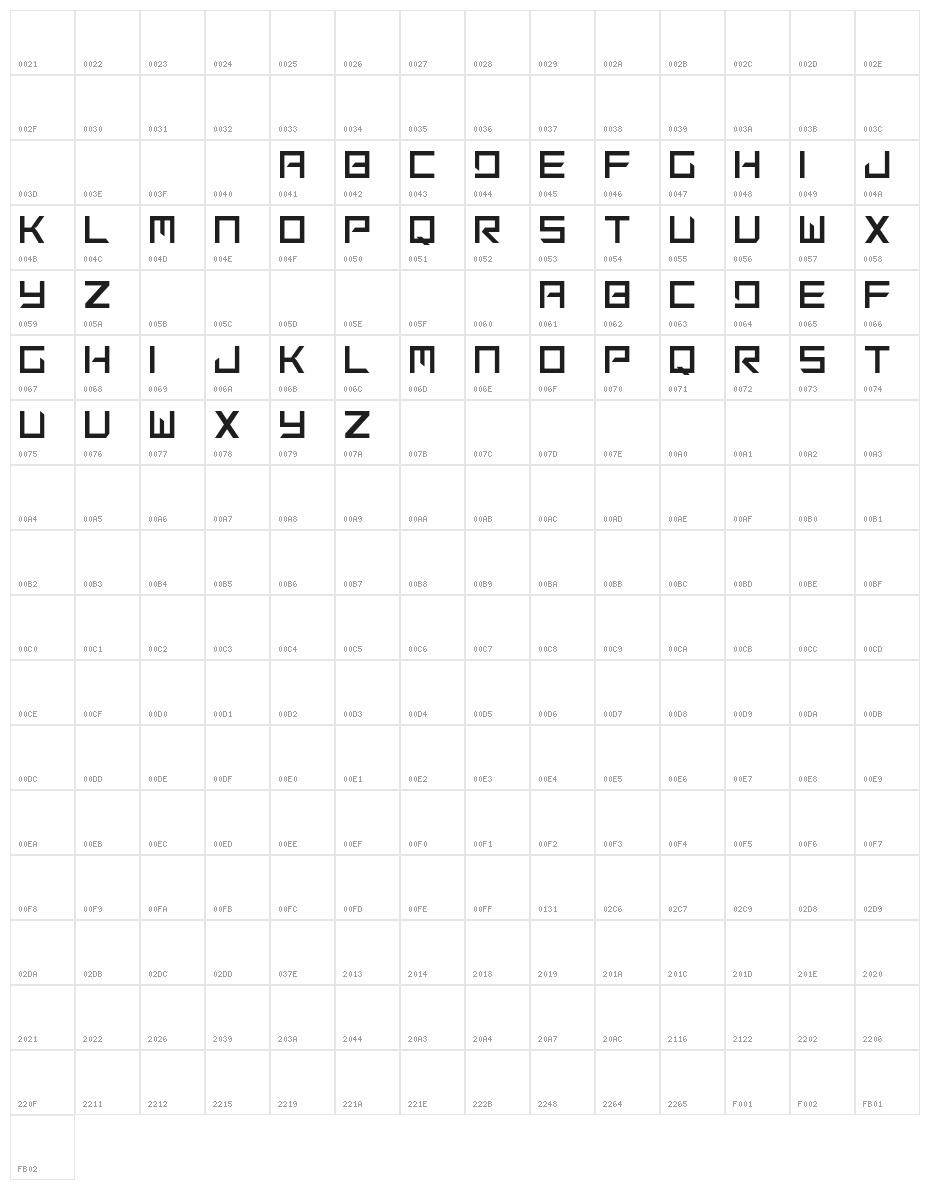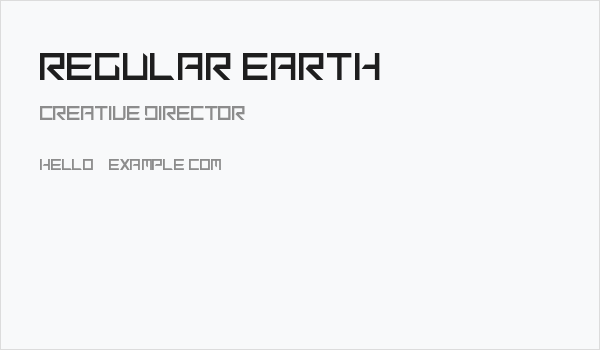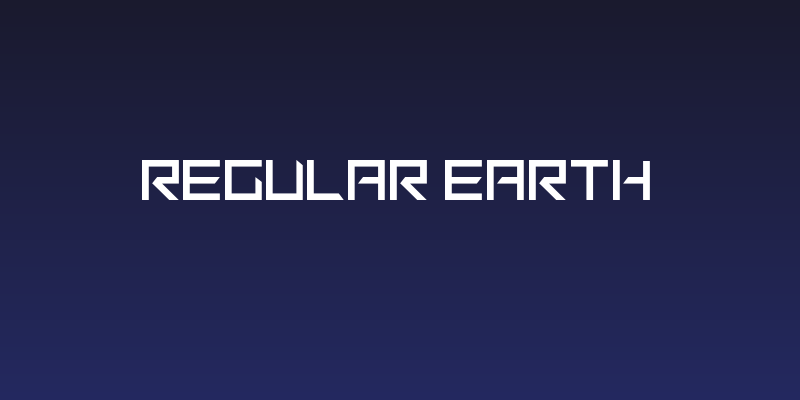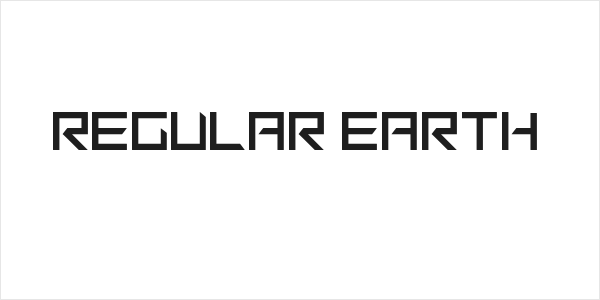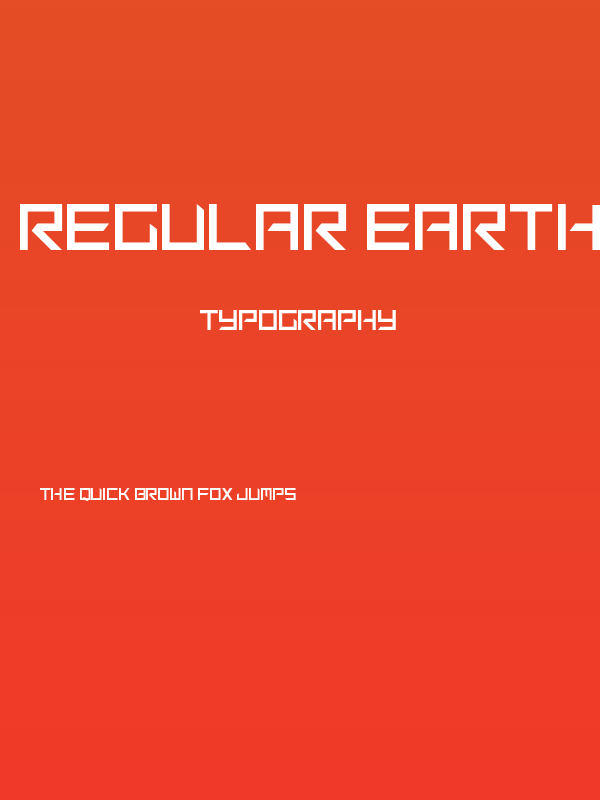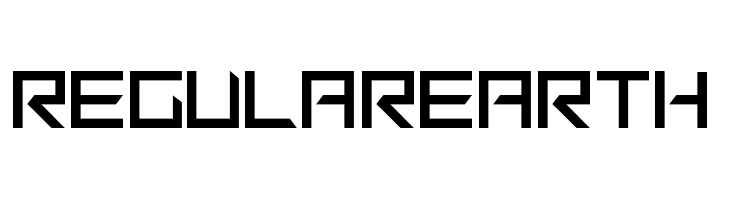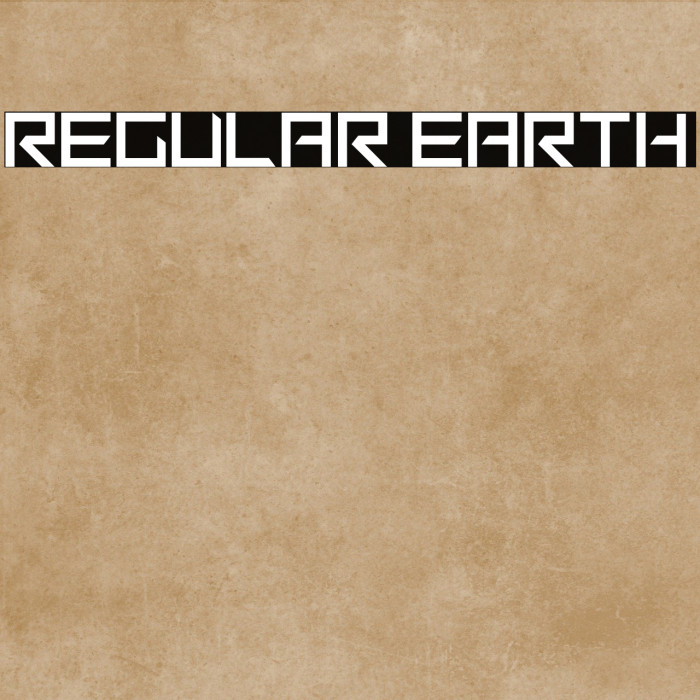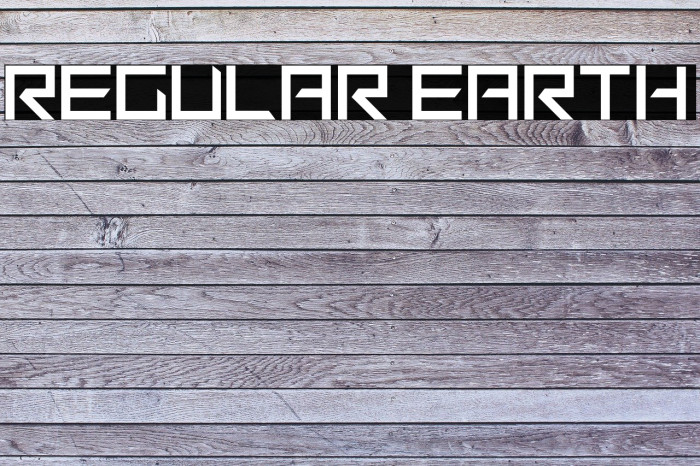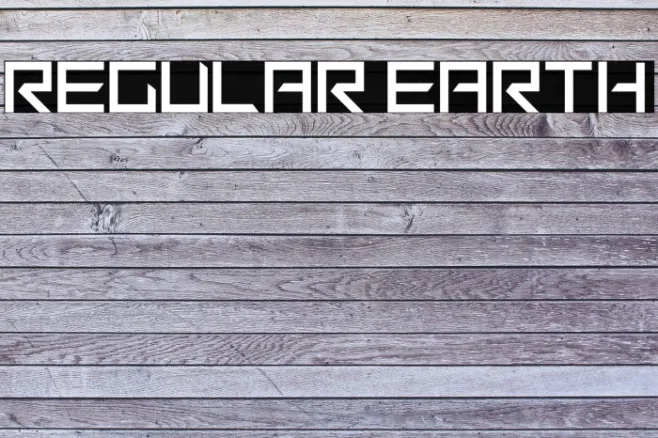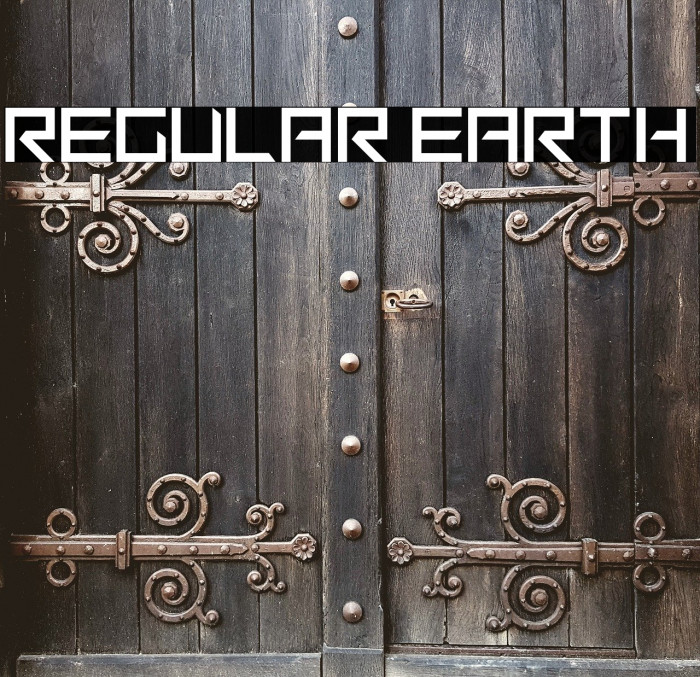
Regular Earth Font
Regular Earth Description
This font features a geometric and futuristic design, characterized by its sharp angles and clean lines. The uppercase letters are bold and structured, giving a sense of strength and modernity. The uniformity in the design creates a cohesive look, making it suitable for digital and tech-oriented projects. The characters are evenly spaced, ensuring readability while maintaining a distinct style. The font's angular nature gives it a unique edge, making it stand out in various design contexts.
| Proposed Projects | Ideal for tech branding, digital interfaces, video game titles, and futuristic-themed posters. |